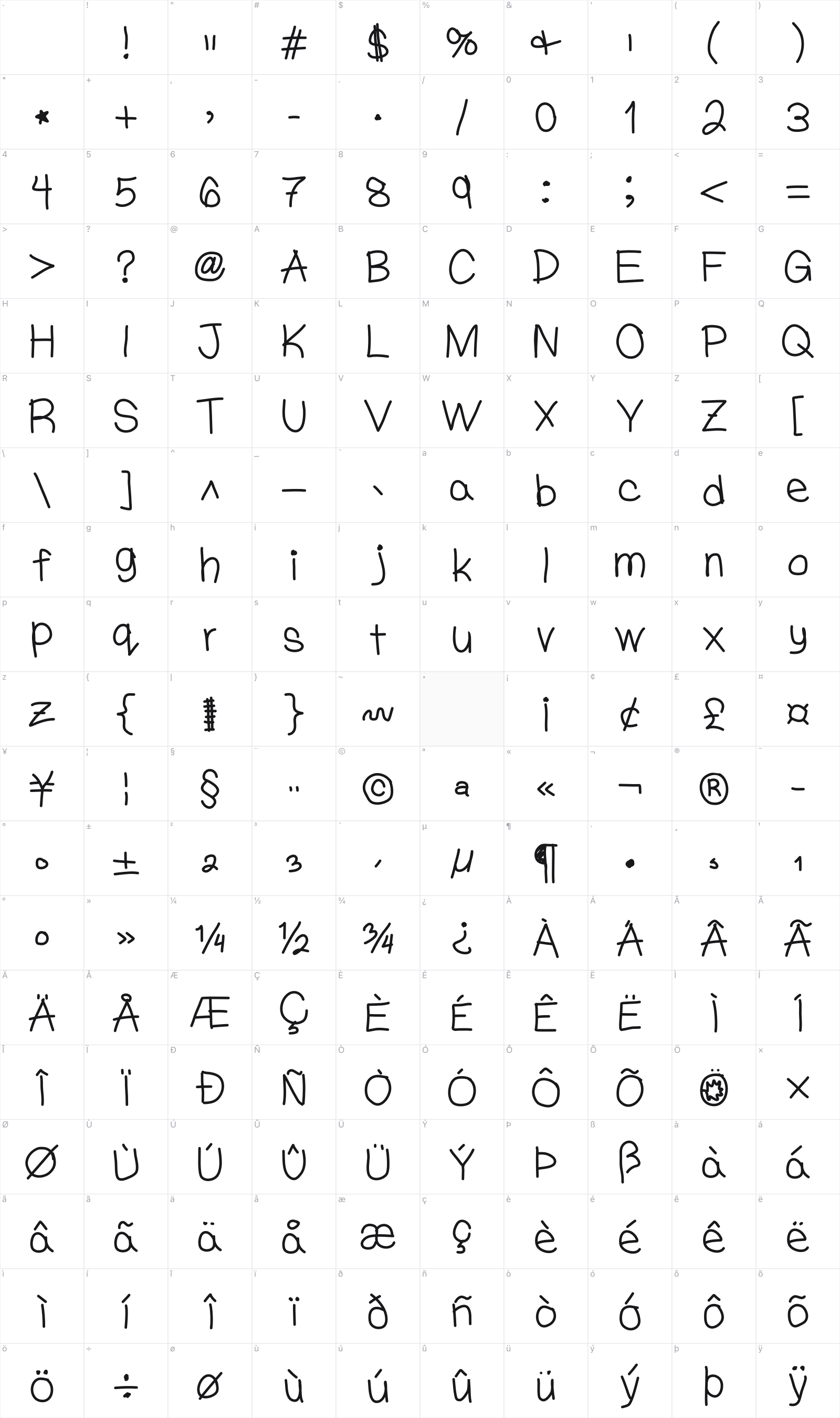
OMG Write Like William
OMG Write Like William is a thin, casual handwritten face that reads like a kid's actual handwriting, all slightly uneven baselines and wobbly strokes that feel genuinely spontaneous. William Koch kept the weight light and the personality high, with letterforms that stay playful and legible without looking like they're trying too hard. Good for informal invitations, personal blogs, or anywhere you want type that feels like a note passed in class.